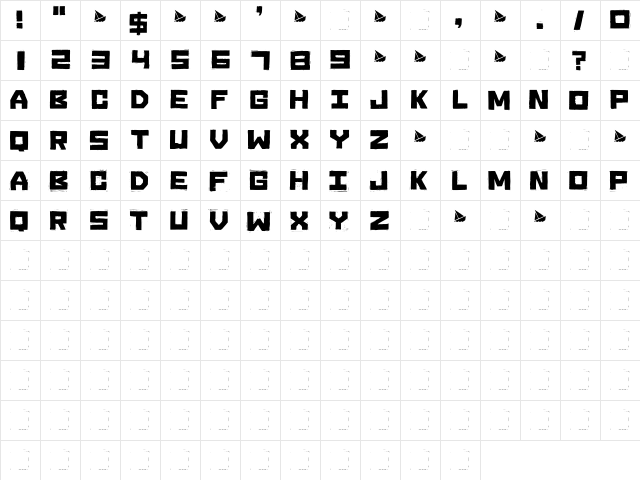
Sinking Ship Regular
Sinking Ship Family
Complete Sinking Ship Regular glyph index. Displaying only characters natively supported by Sinking Ship Regular font.
Design Context for Sinking Ship
Sinking Ship is a composed and adaptable typeface that performs quietly and consistently across a wide range of design contexts.